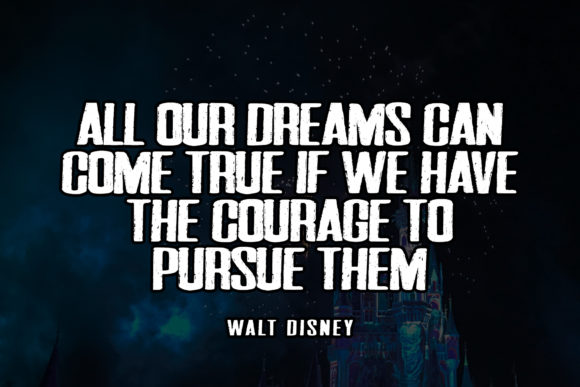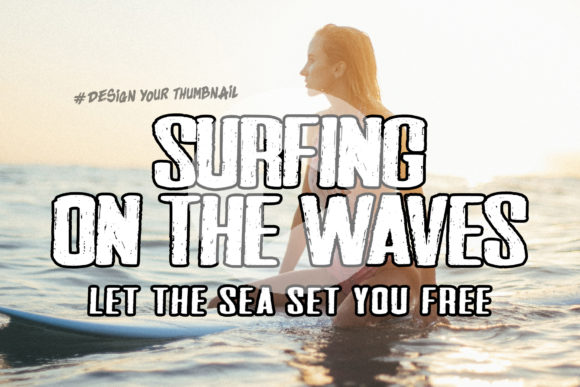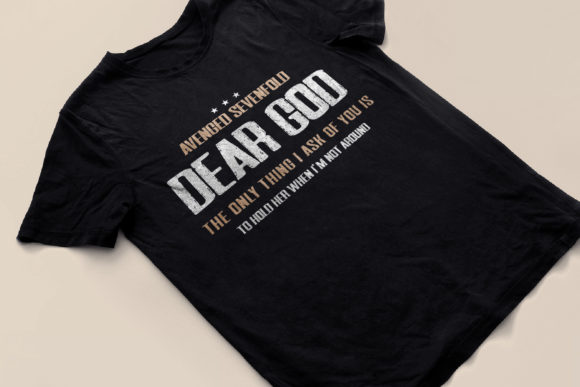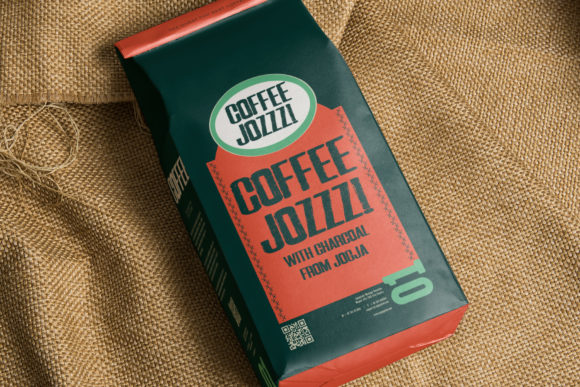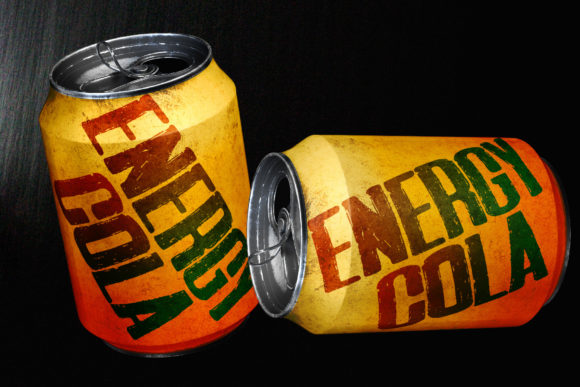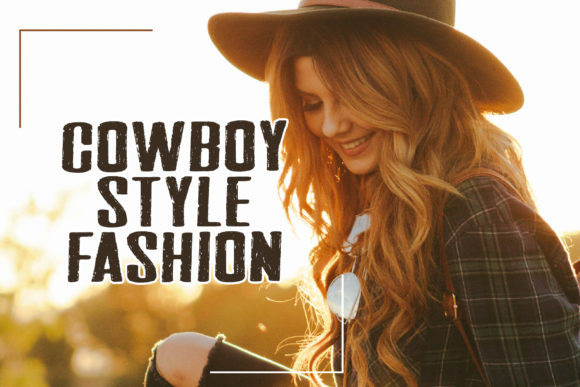
Unleash the Power of Darkness: Exploring the Darkness of the Night Font
Are you a designer or crafter looking for a font that can add a touch of drama and elegance to your projects? Look no further than the Darkness of the Night Font. This strong brush display font is perfect for creating stunning headlines, logos, posters, and branding materials that demand attention.
What is the Darkness of the Night Font?
The Darkness of the Night Font is a unique and versatile typeface that is designed to make a statement. With its bold, brush-stroked letters, this font is perfect for adding a touch of sophistication and glamour to any design project. Whether you’re working on a logo, poster, or social media graphic, this font is sure to turn heads.
Key Features of the Darkness of the Night Font
- Strong Brush Display Font: The Darkness of the Night Font features bold, expressive brush strokes that give it a dynamic and eye-catching feel.
- Perfect for Headlines and Logos: With its bold and attention-grabbing design, this font is ideal for creating headlines, logos, and titles that demand attention.
- Versatile and Flexible: The Darkness of the Night Font can be used for a wide range of design projects, from posters and flyers to social media graphics and branding materials.
- Elegant and Sophisticated: This font features a sophisticated and elegant design that is perfect for luxury brands, high-end products, and creative projects.
How to Use the Darkness of the Night Font
The Darkness of the Night Font is incredibly easy to use and can be incorporated into a wide range of design projects. Here are a few ideas to get you started:
- Create Stunning Headlines: Use the Darkness of the Night Font to create bold and attention-grabbing headlines that draw readers in.
- Design Eye-Catching Logos: This font is perfect for creating unique and memorable logos that reflect your brand’s personality and style.
- Make a Statement with Posters: Use the Darkness of the Night Font to create striking posters that grab attention and communicate your message effectively.
- Add a Touch of Elegance to Your Branding: This font is perfect for adding a touch of sophistication and glamour to your branding materials, from business cards to letterheads.
Benefits of Using the Darkness of the Night Font
There are many benefits to using the Darkness of the Night Font in your design projects. Here are a few:
- Stand Out from the Crowd: With its bold and attention-grabbing design, this font is sure to help your design projects stand out from the crowd.
- Convey a Sense of Luxury and Sophistication: The Darkness of the Night Font features a sophisticated and elegant design that is perfect for luxury brands and high-end products.
- Easy to Read and Understand: Despite its bold design, this font is easy to read and understand, making it perfect for use in a wide range of design projects.
- Versatile and Flexible: The Darkness of the Night Font can be used for a wide range of design projects, from posters and flyers to social media graphics and branding materials.
In conclusion, the Darkness of the Night Font is a powerful and versatile typeface that is perfect for designers and crafters looking to add a touch of drama and elegance to their projects. With its bold, brush-stroked letters and sophisticated design, this font is sure to turn heads and make a lasting impression. Whether you’re working on a logo, poster, or social media graphic, the Darkness of the Night Font is a great choice for any design project.